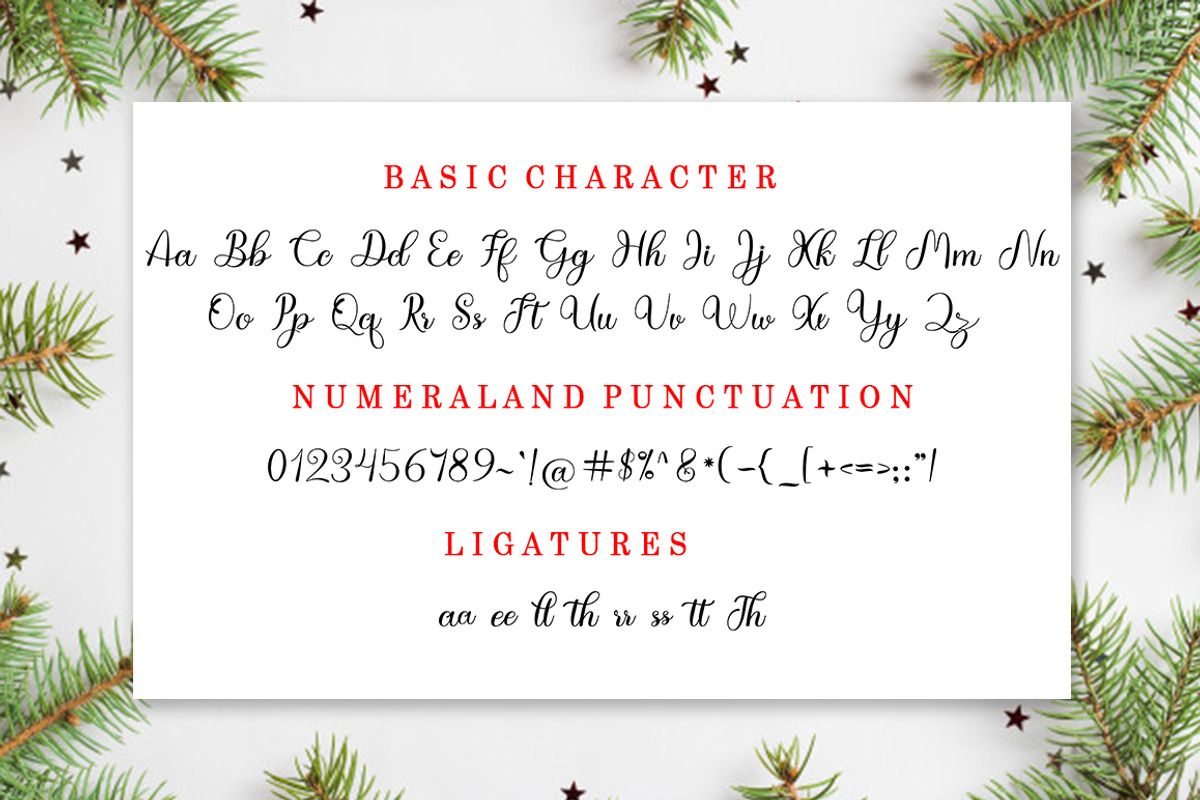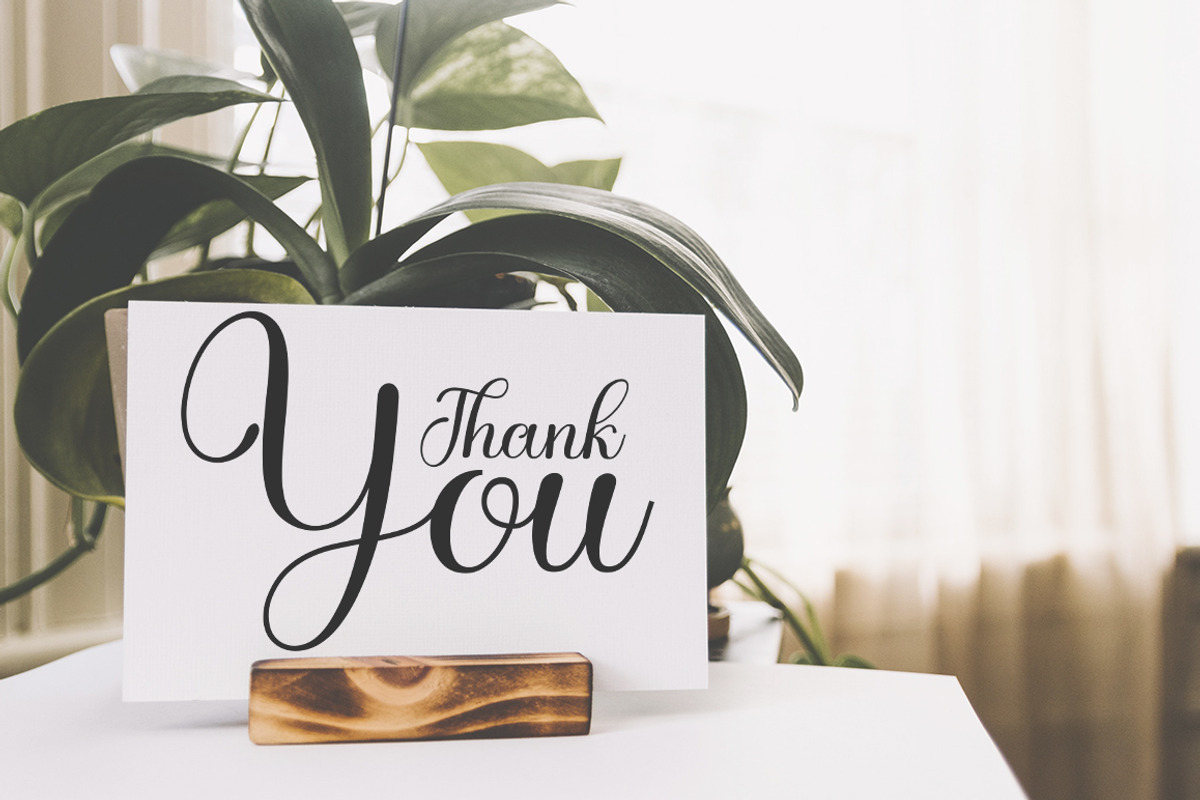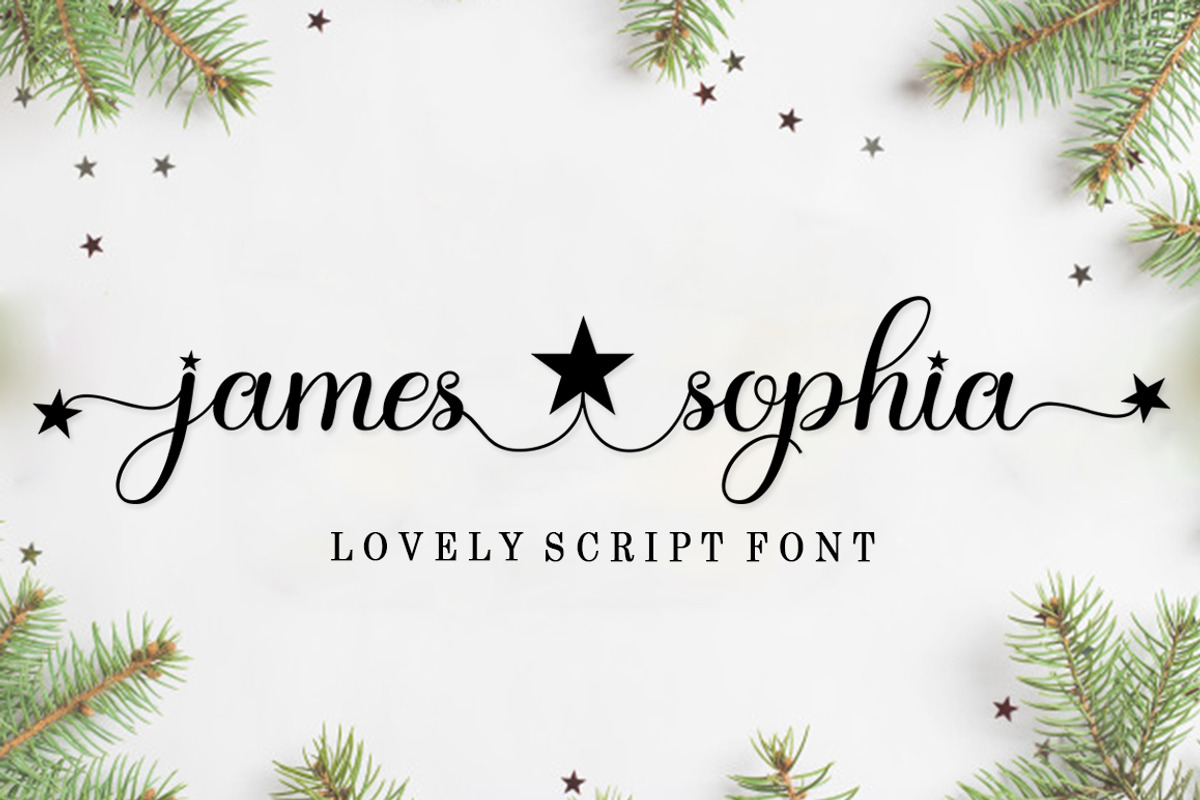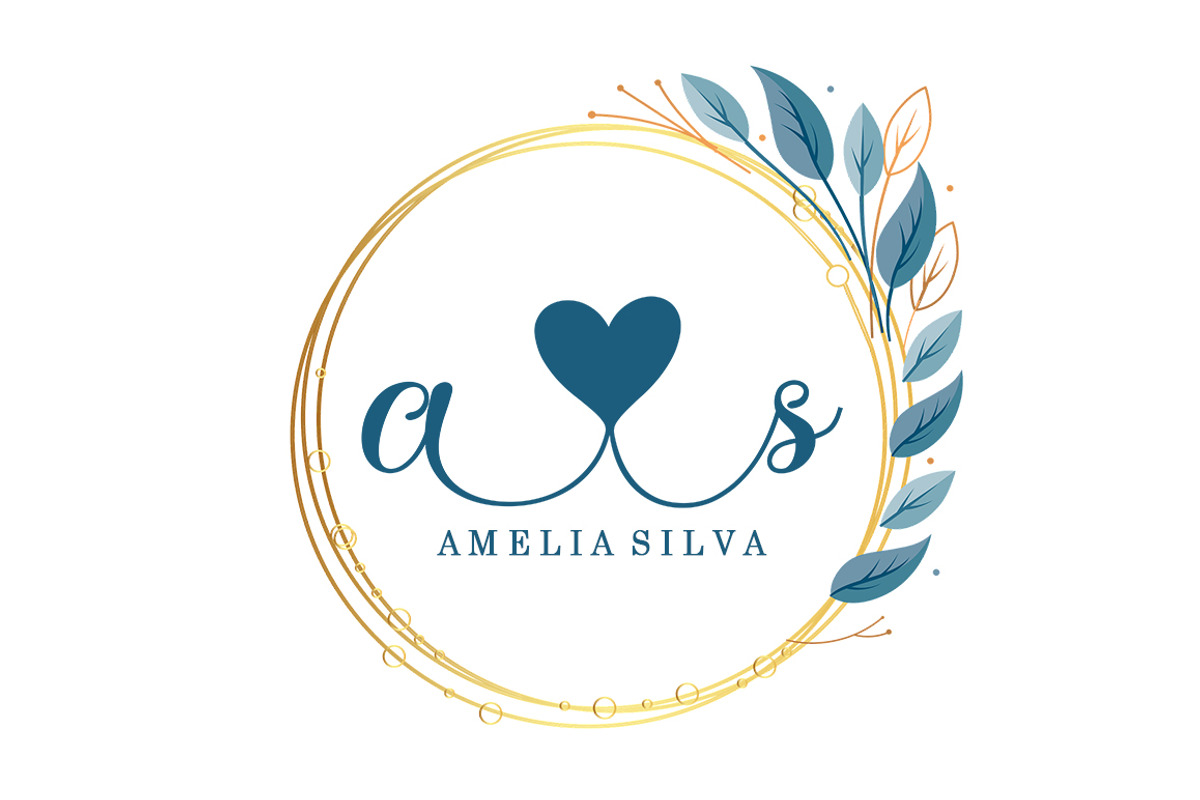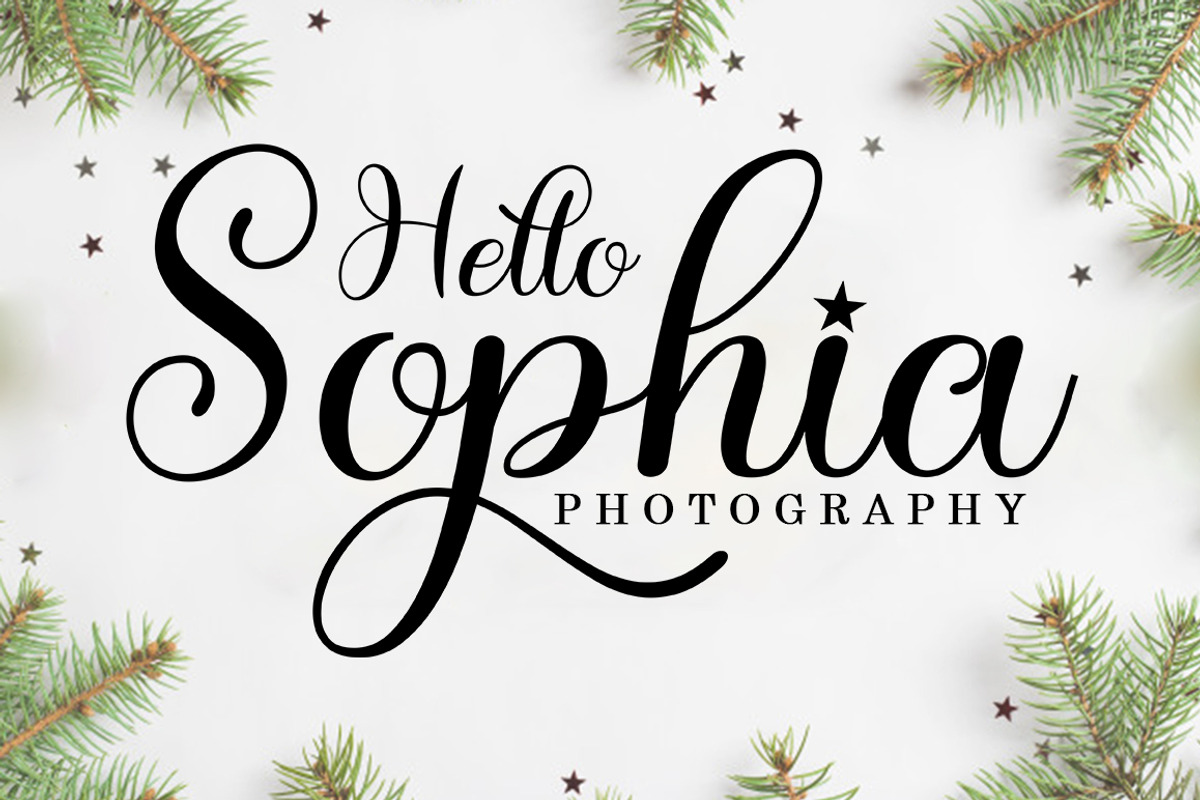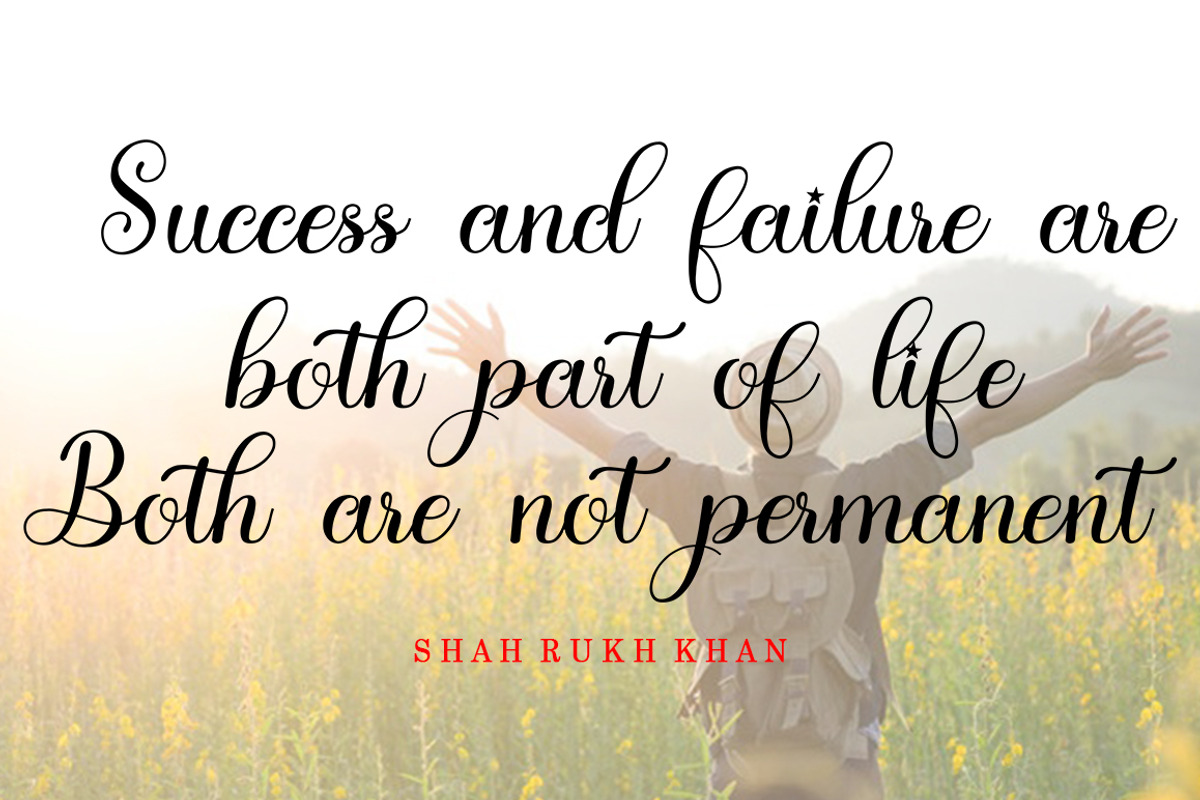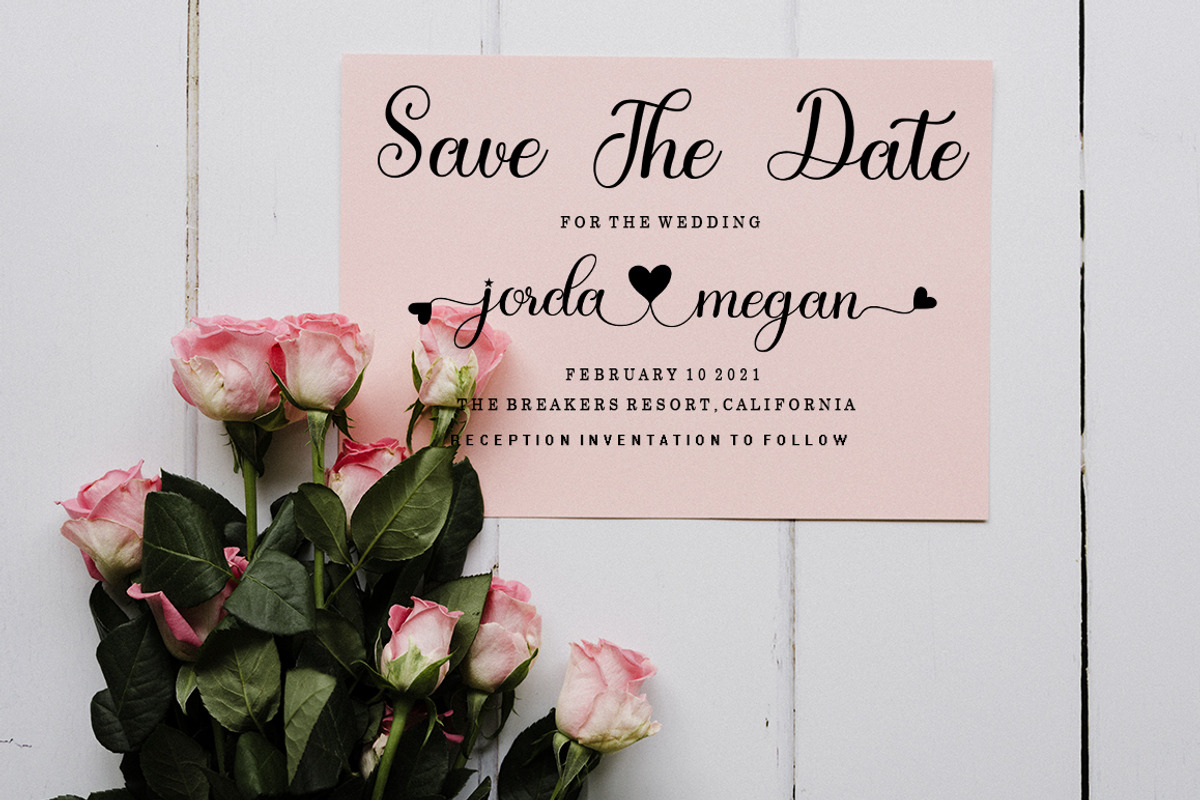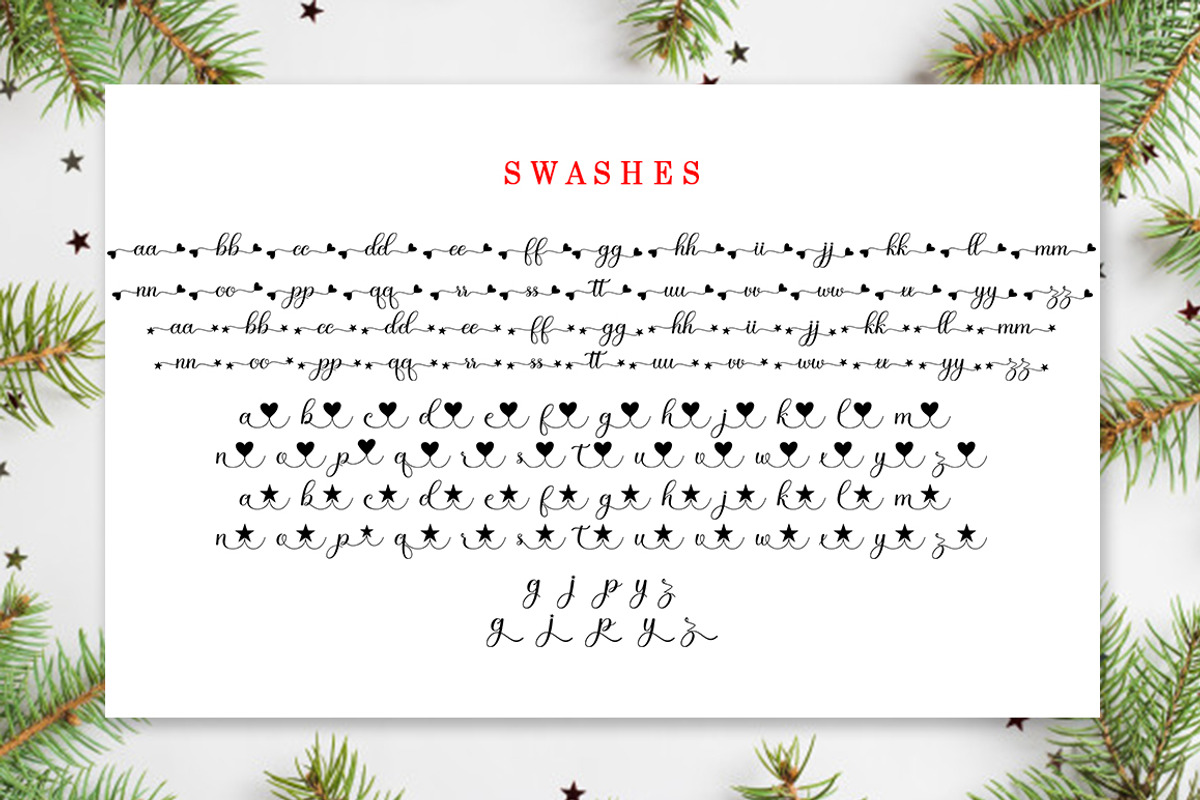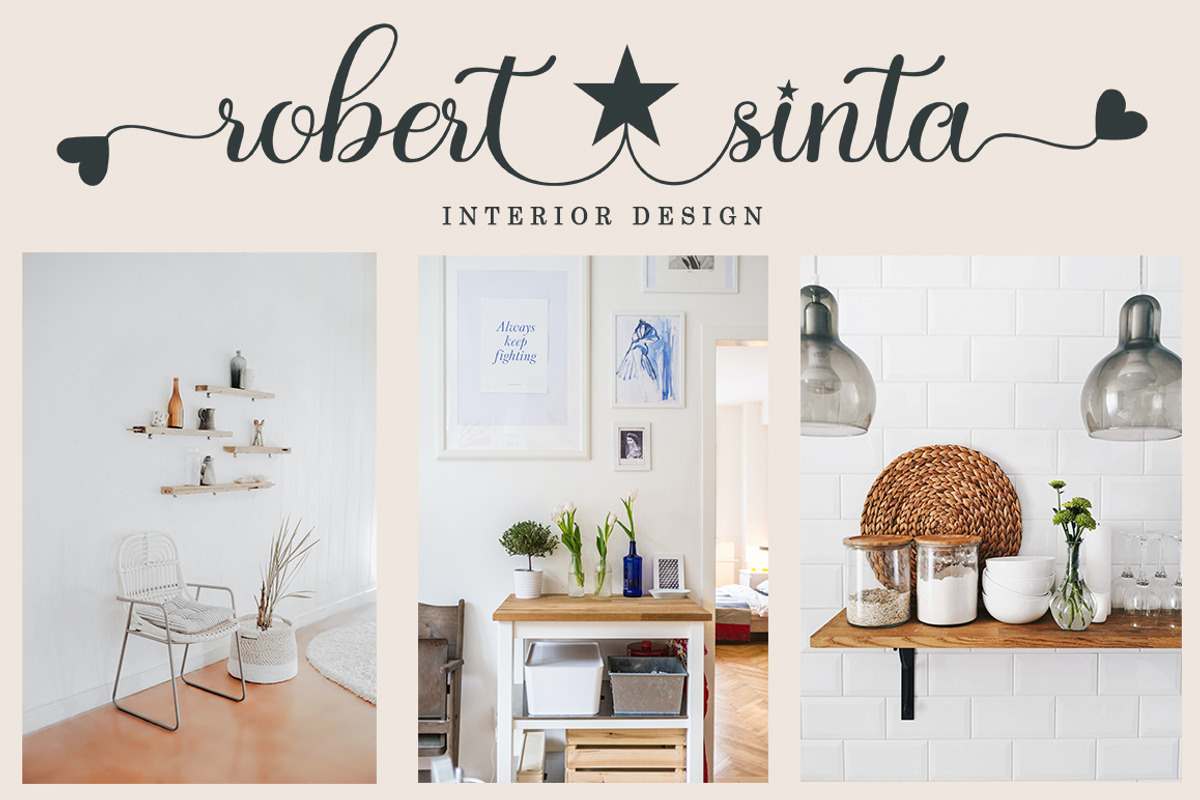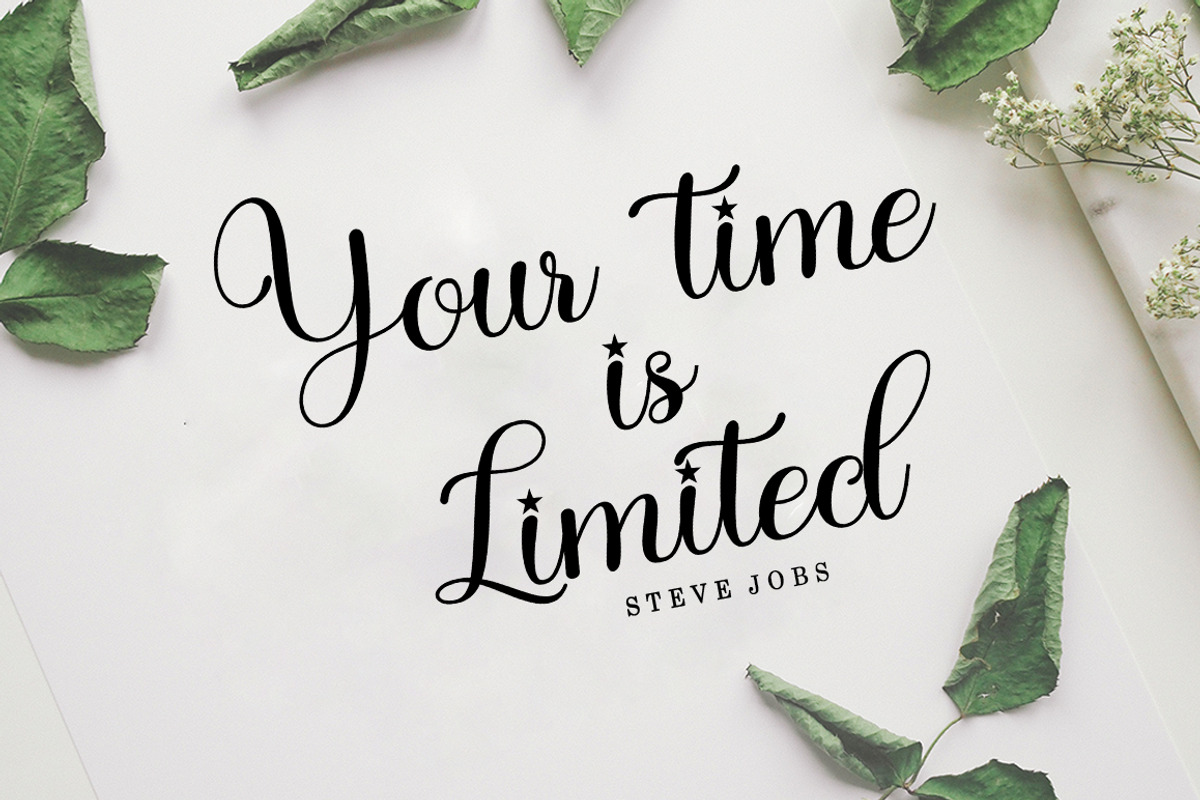
James Sophia | Lovely Font
Introducing
James Sophia in a beautiful handwritten style. Equipped with 300 glyphs James Sophia is perfect for branding projects, home appliance design, product packaging, use in business cards, invitation cards, etc. Simply as a stylish text overlay onto a background image or anything that requires a touch of elegance.